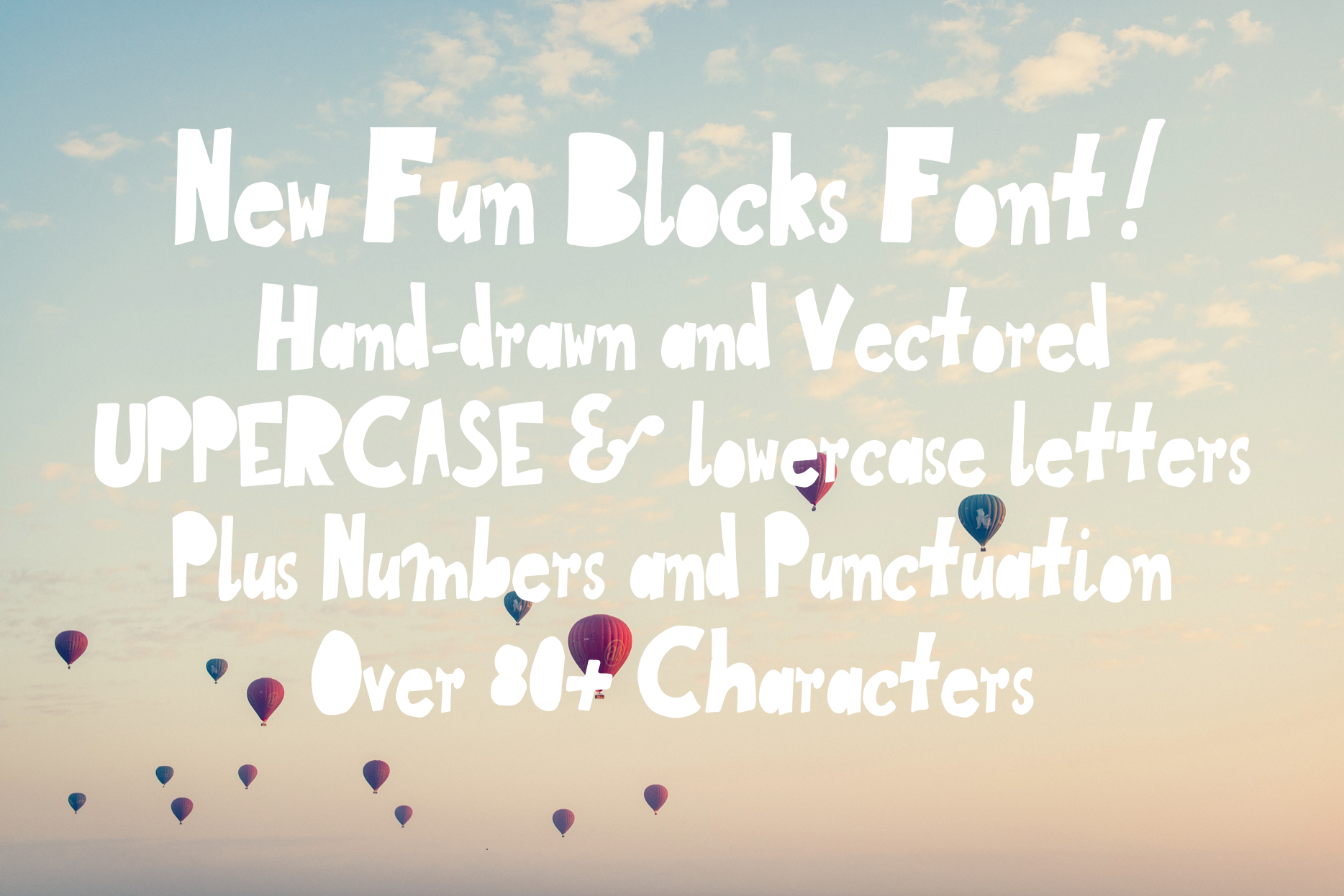
New Fun Blocks - Hand-drawn Typeface
Completely irregular hand-drawn font with varying weights to give your work that absolutely unique and personable look!